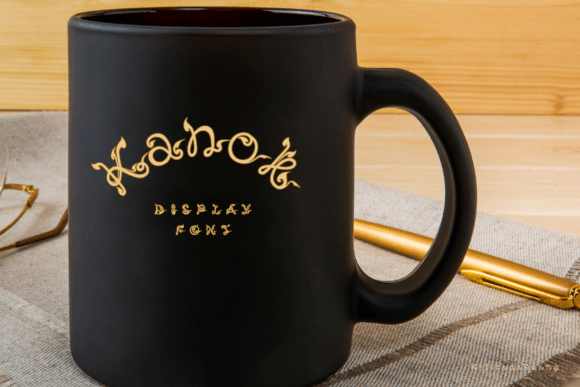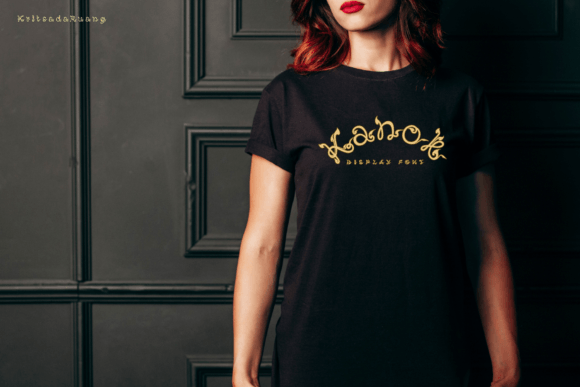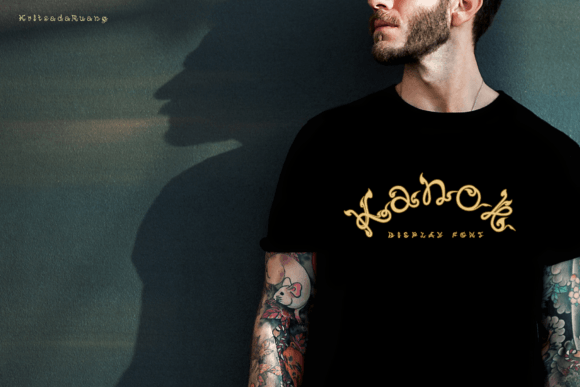
Introduction to Kanok Font
Have you ever stared at a blank canvas, trying to spark creativity for a design project? The blank page stares back, a daunting reminder of the task ahead. But then, something catches your eye – a beautiful Thai pattern, its intricate details dancing across the page. It’s moments like these that inspire us to create something truly special, and the Kanok Font is no exception.
As a valuable design resource, the Kanok Font brings a touch of elegance and luxury to any project. With its ornate Thai pattern art inspiration, it’s perfect for designers seeking a high-quality, Asian-inspired feel. Whether you’re working on a creative project or simply looking for a unique font to elevate your design, the Kanok Font is an excellent choice.
Key Features of Kanok Font
- Includes 12 unique font styles, with various weights and styles to suit different design needs
- Designed with a modern and elegant aesthetic, perfect for branding and visual identity projects
Honest Review: Kanok Font
I recently stumbled upon the Kanok Font, and I must say it’s been a game-changer for my creative projects. The high quality of this font is evident from the moment you download it, and the transparent background makes it perfect for overlaying text on images.
- ✨ High quality design that’s perfect for professional projects
- ✨ Transparent background, making it ideal for creative applications
- ✨ Versatile font that’s suitable for a wide range of design resources
- ⚠️ Limited font sizes and styles, which may not be suitable for complex designs
Overall, I’m impressed with the Kanok Font. It’s a great addition to any designer’s toolkit, and the free download makes it an excellent resource for those on a budget. Just be aware of the limitations, and use it for its intended purposes.
Introduction to Kanok Font
Kanok Font is a high-quality, free download design resource ideal for creative projects that require a unique and stylish touch. This versatile font features a transparent background, making it perfect for overlaying on images or using as a standalone design element.
Tips for Getting the Most Out of Kanok Font
For optimal results, use Kanok Font in combination with high-quality images and design elements. Experiment with different font sizes, colors, and styles to create a unique and visually appealing design.
Common Use Cases for Kanok Font
Kanok Font is ideal for use in creative projects such as social media graphics, presentations, and marketing materials. Its transparent background makes it perfect for overlaying on images or using as a standalone design element.